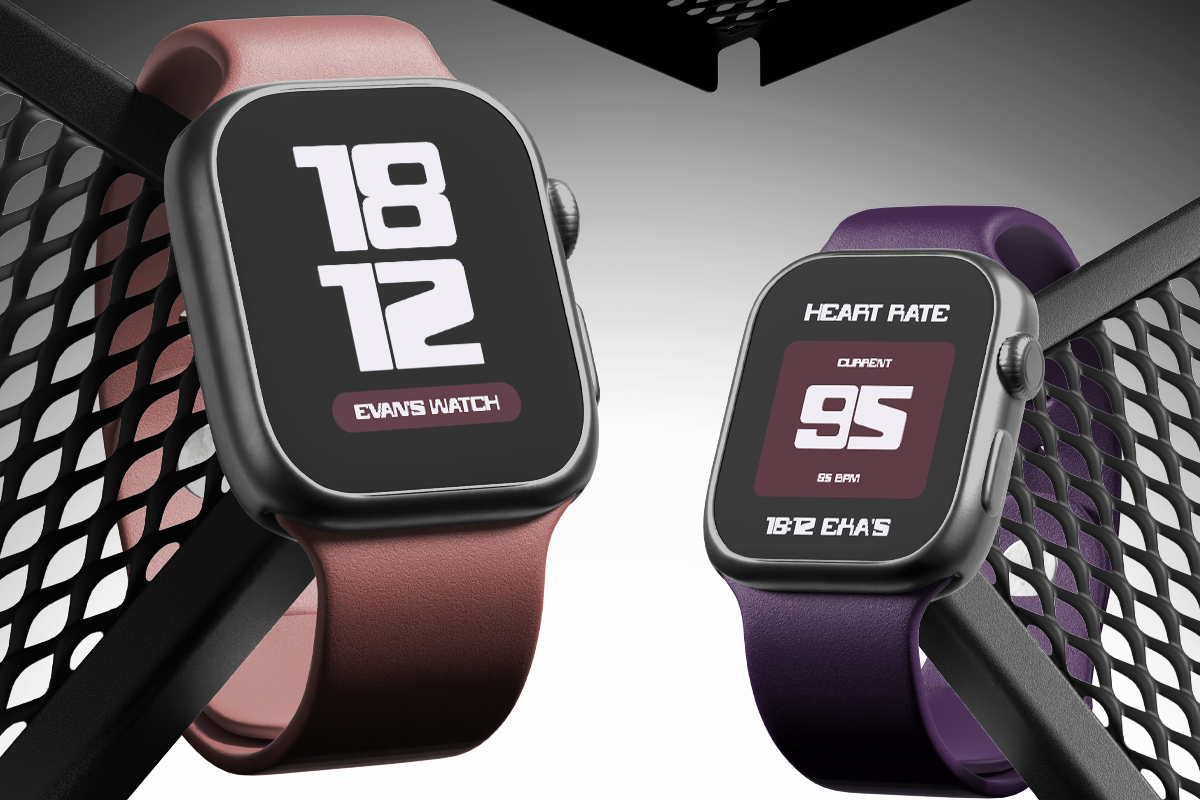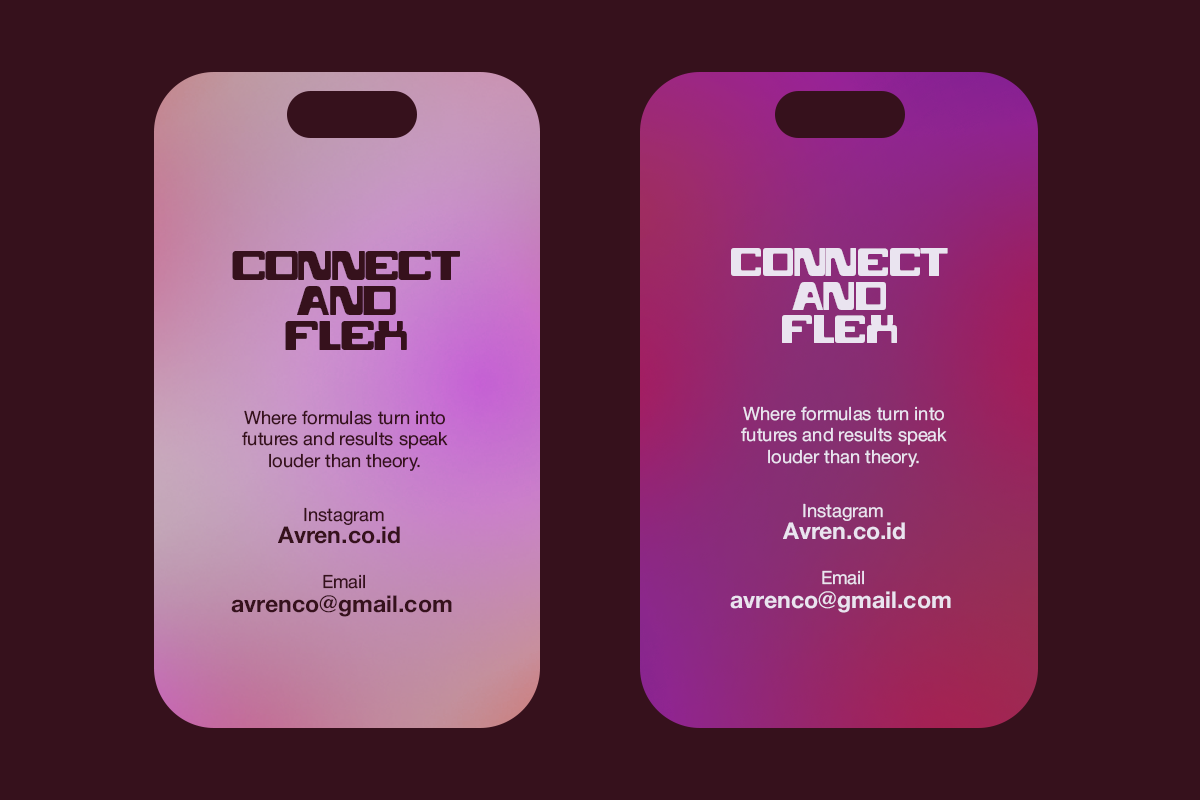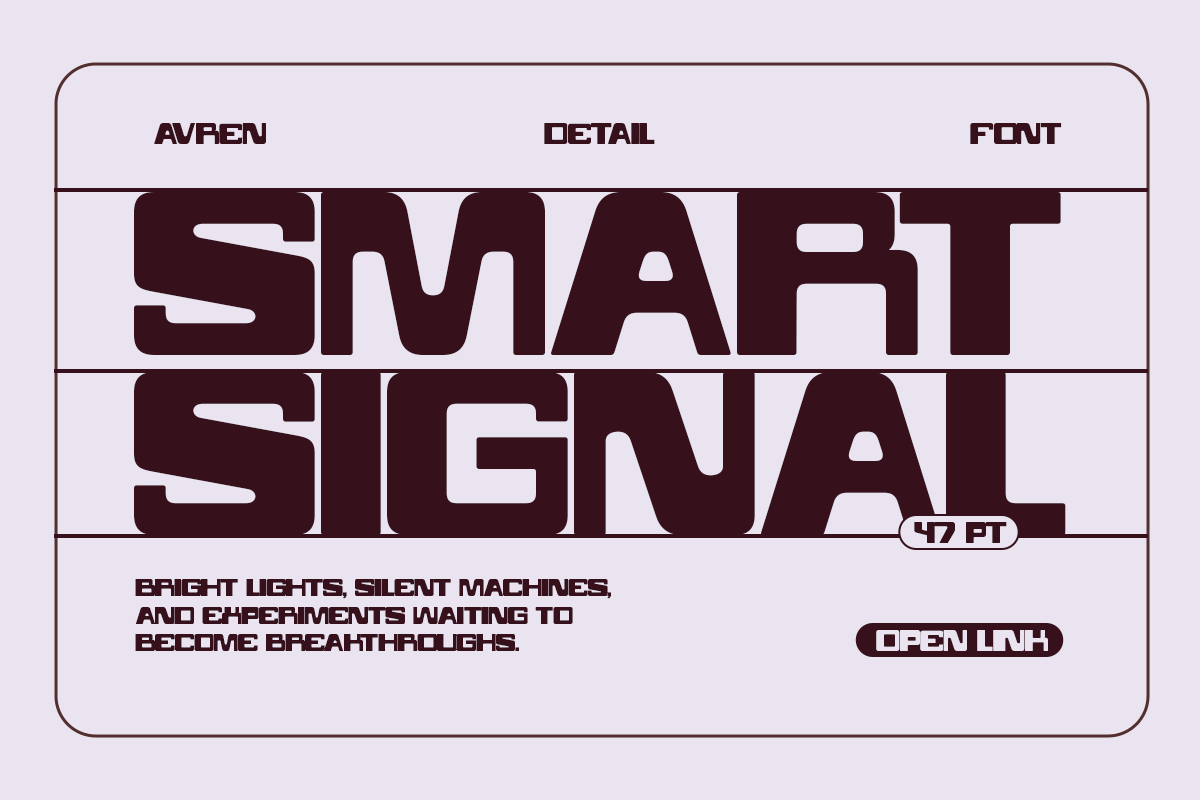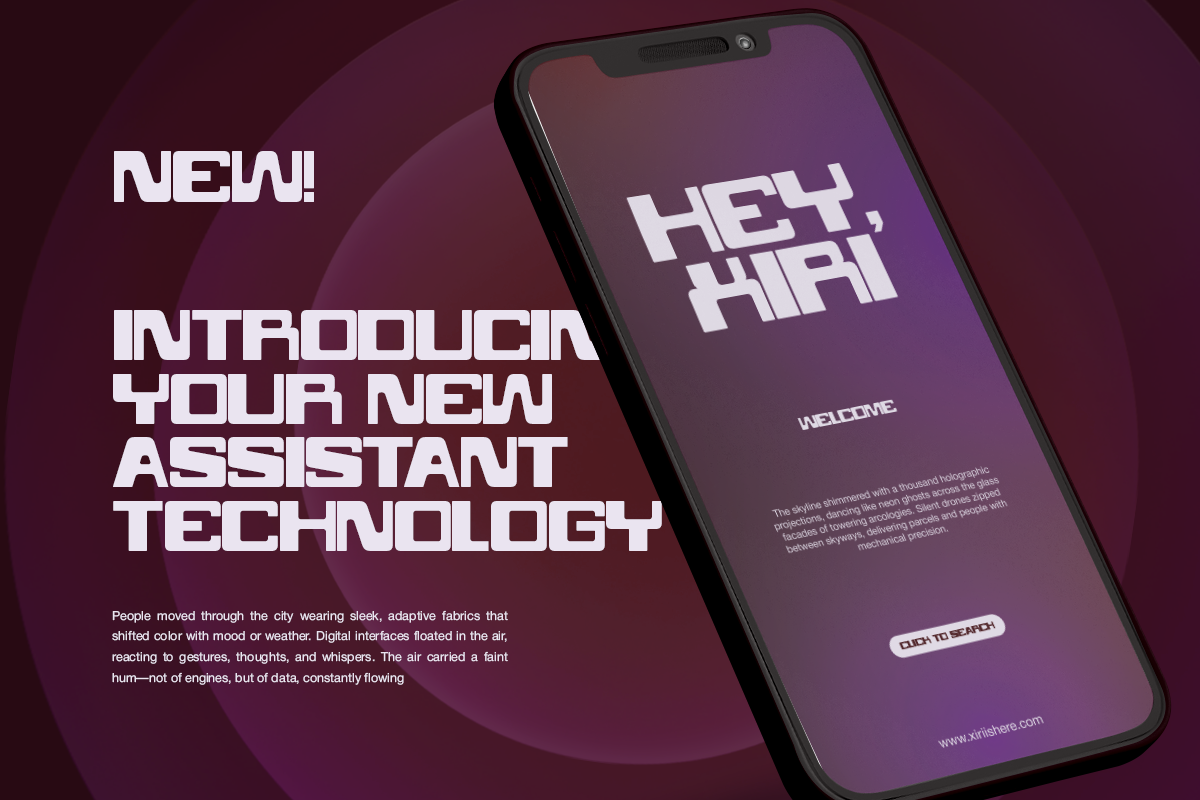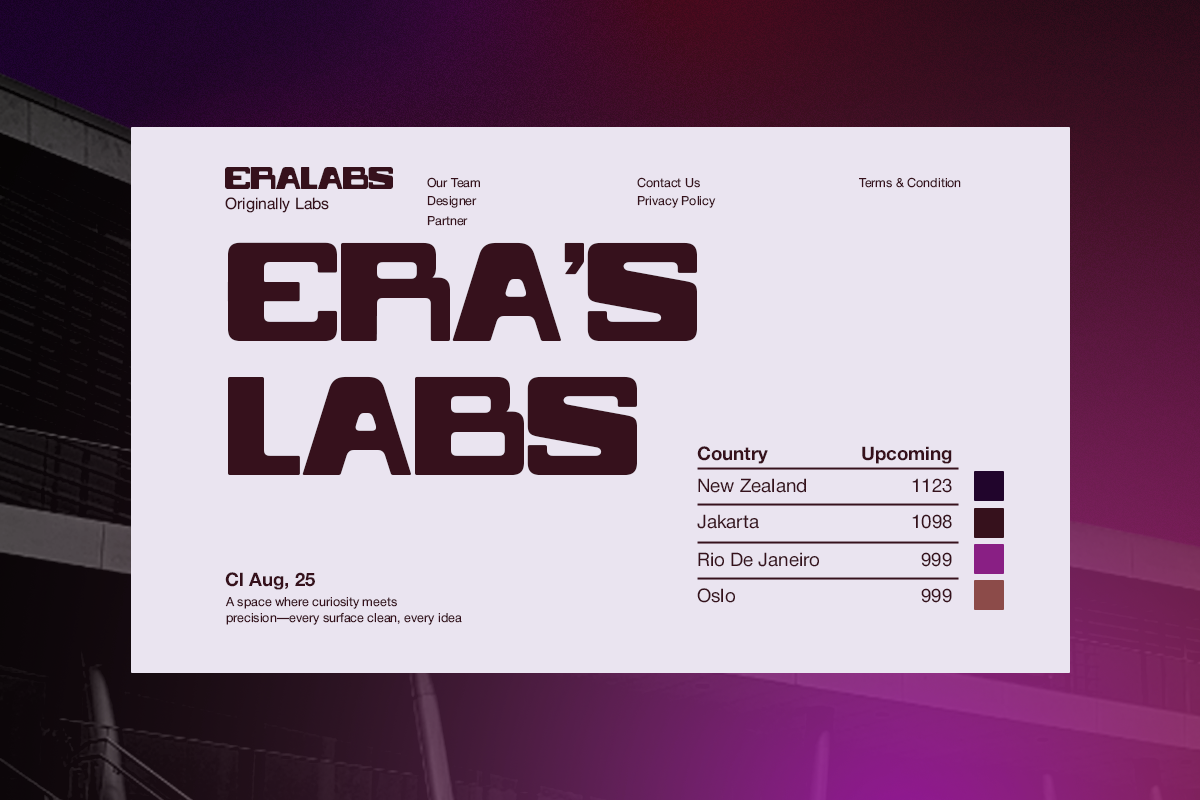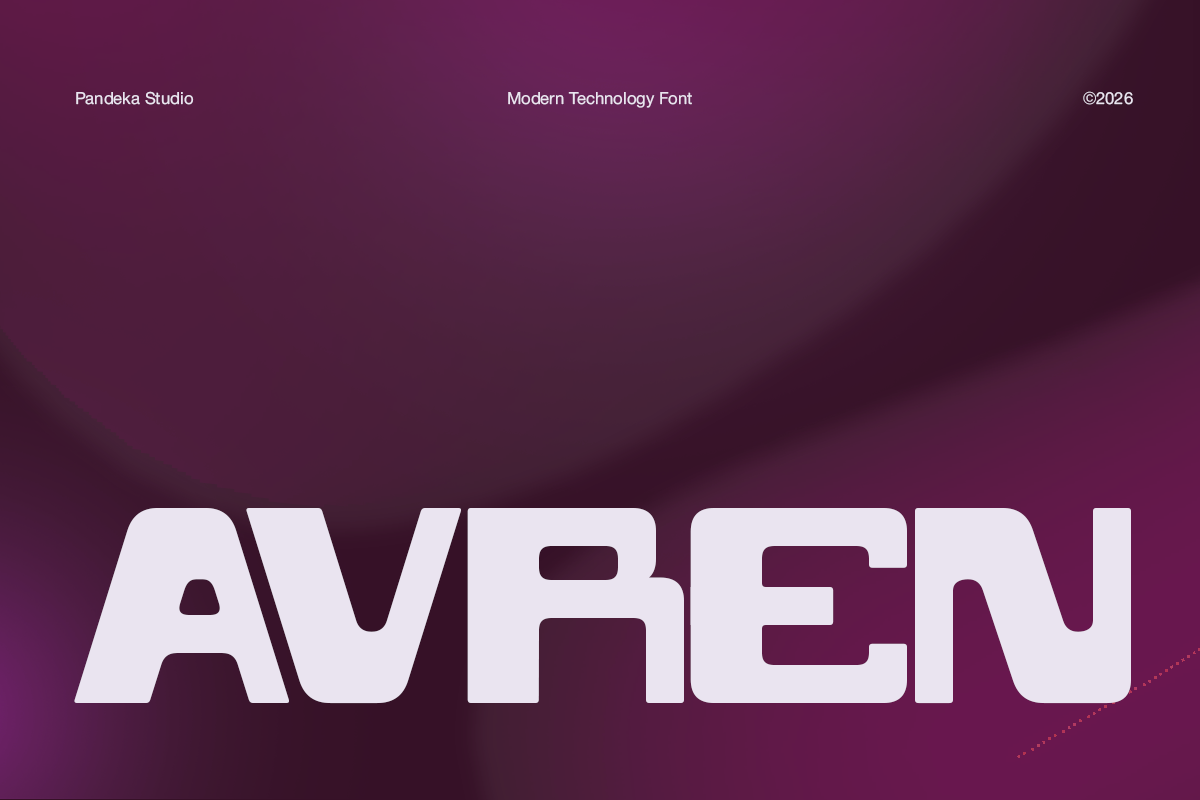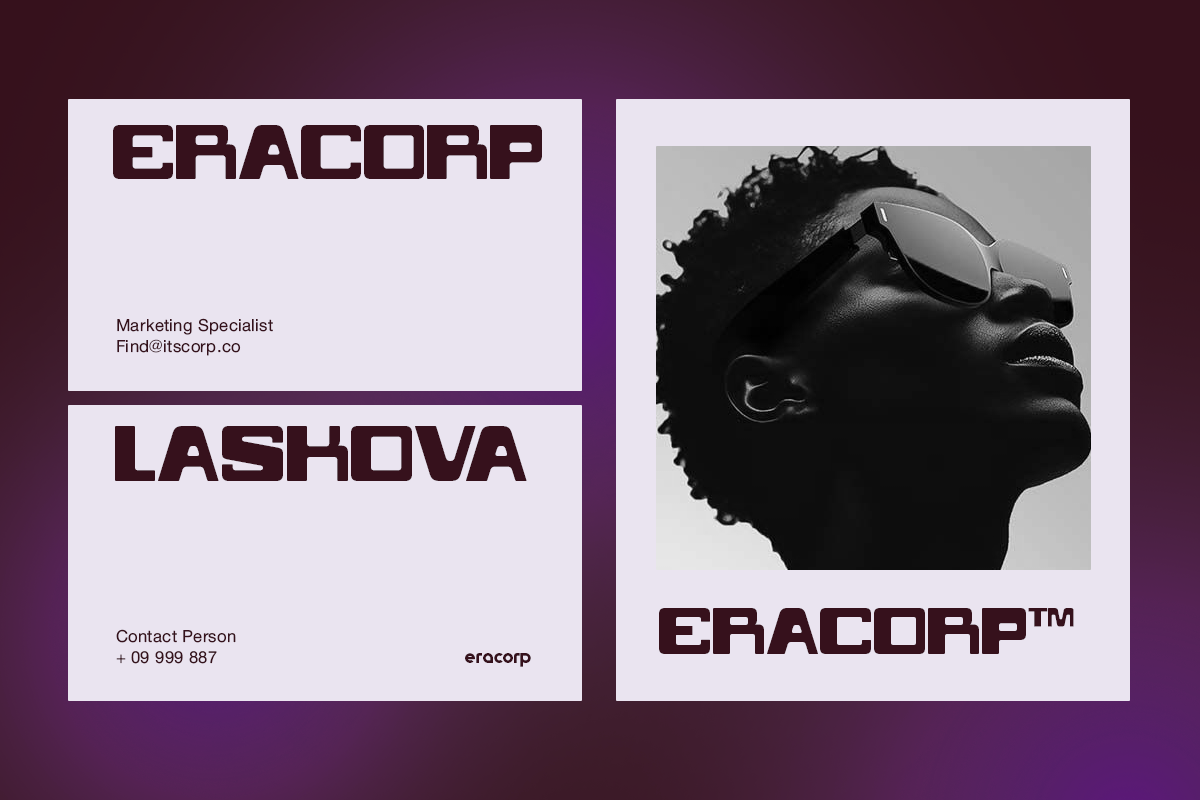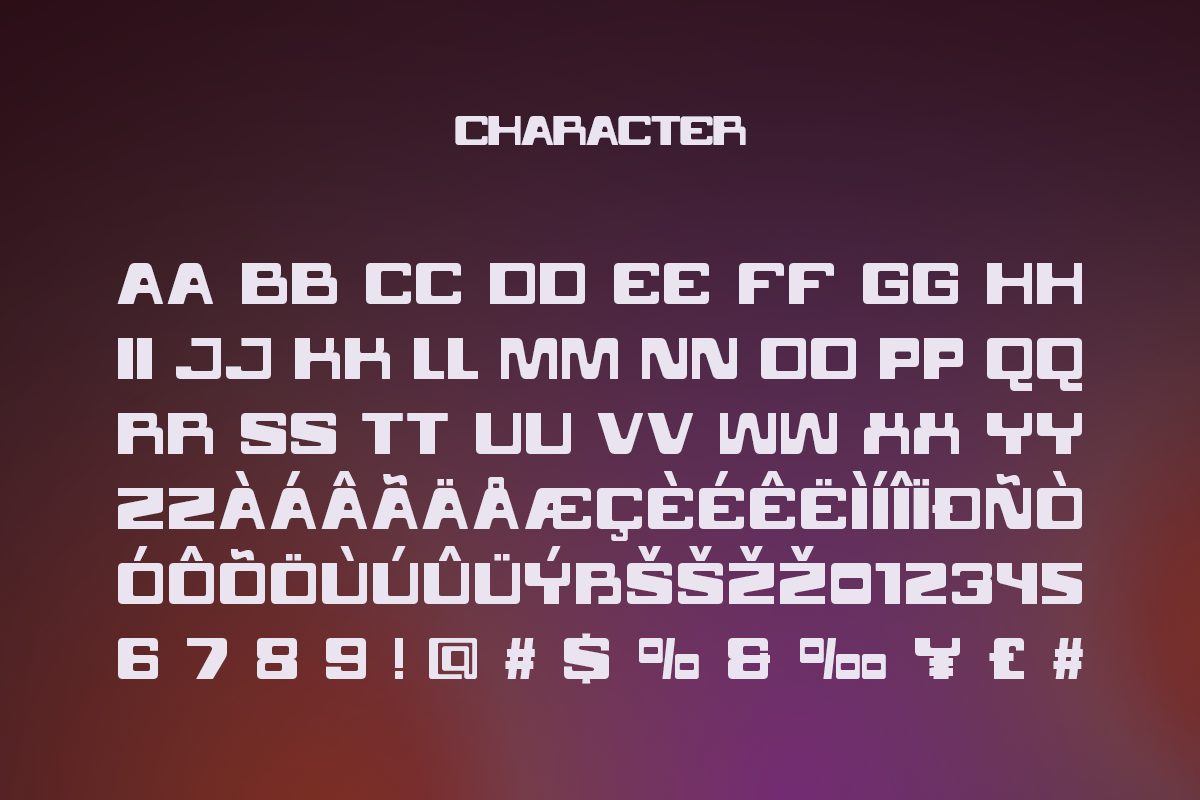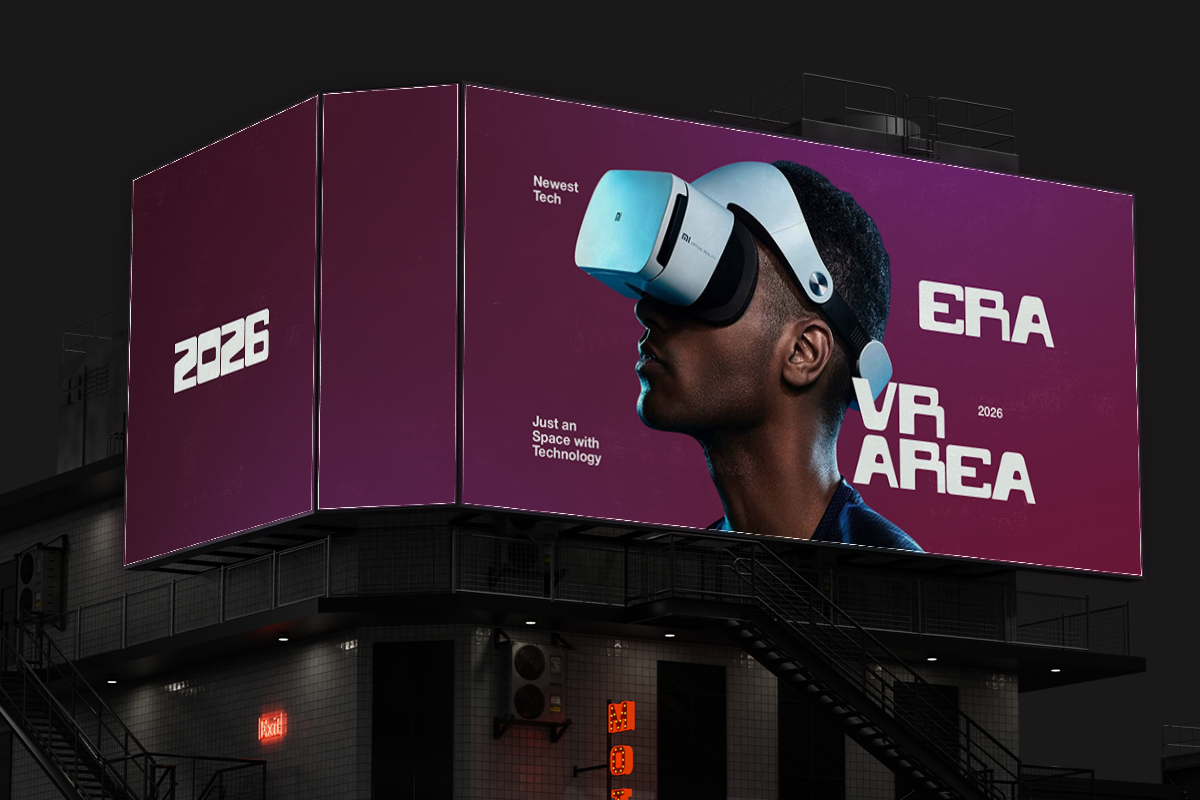
Avren - Modern Technology Font
Avren is a sleek, bold, and futuristic display font designed for modern technology, digital branding, and high-tech aesthetics. With its sharp edges, smooth curves, and structured geometry, Avren delivers a cutting-edge and professional look that feels innovative, intelligent, and forward-thinking.
Available in 1 style: Regular, Avren includes uppercase & lowercase letters, numbers, punctuation, and multilingual support. Its modern digital character makes it perfect for tech startups, smart devices, UI/UX design, app branding, wearable tech, VR/AR visuals, cybersecurity brands, futuristic posters, motion graphics, and corporate digital identities.
- Full Character Set: Uppercase, lowercase, numbers, symbols, and punctuation